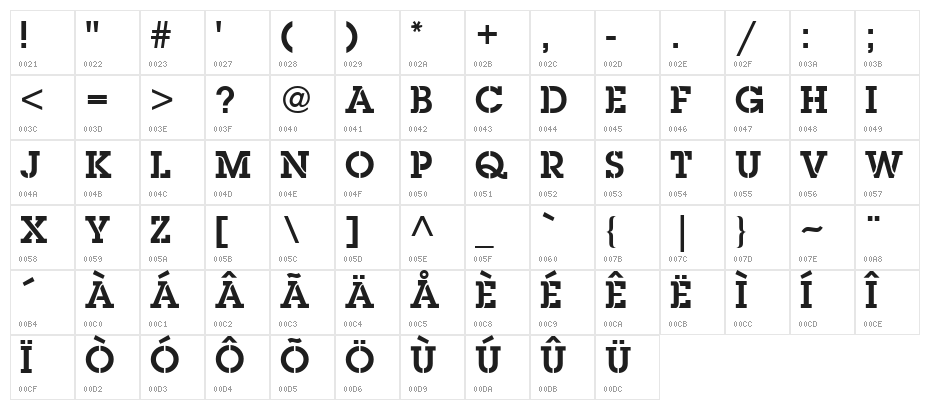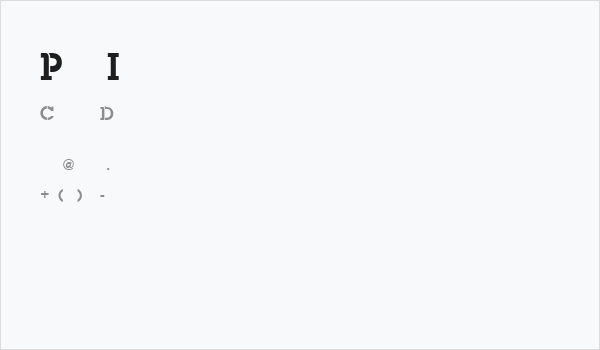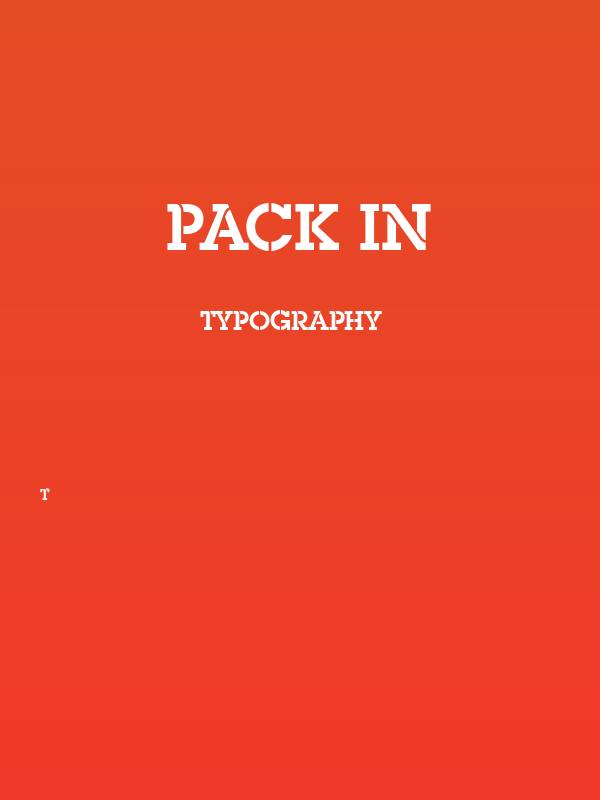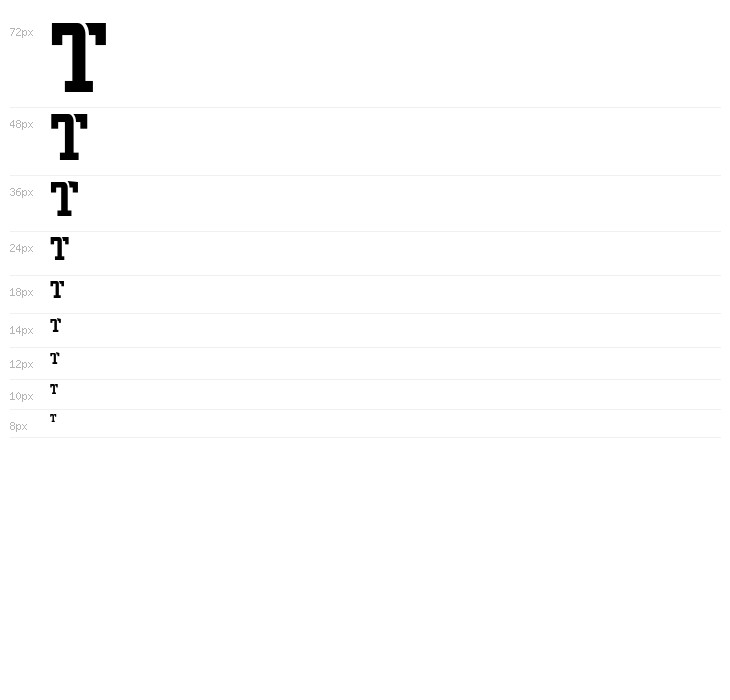
Pack In Font
Pack In Description
This font exhibits a bold and striking design with a geometric and industrial feel. The characters are constructed with thick, block-like strokes that feature sharp angles and cut-out sections, giving them a unique, segmented appearance. The uppercase letters are uniform in height, while the special characters maintain the same boldness and style, ensuring consistency across all glyphs. The font's distinct style makes it highly suitable for attention-grabbing headlines or branding that requires a modern and edgy look.
| Proposed Projects | Ideal for branding, posters, headlines, and any design project that requires a modern and bold statement. |